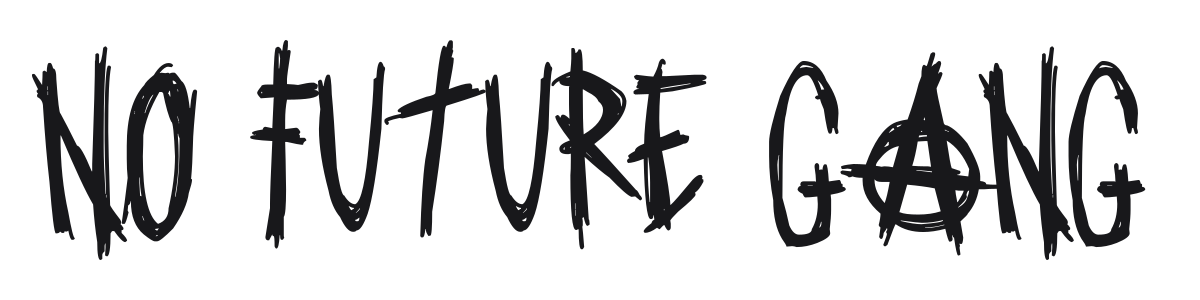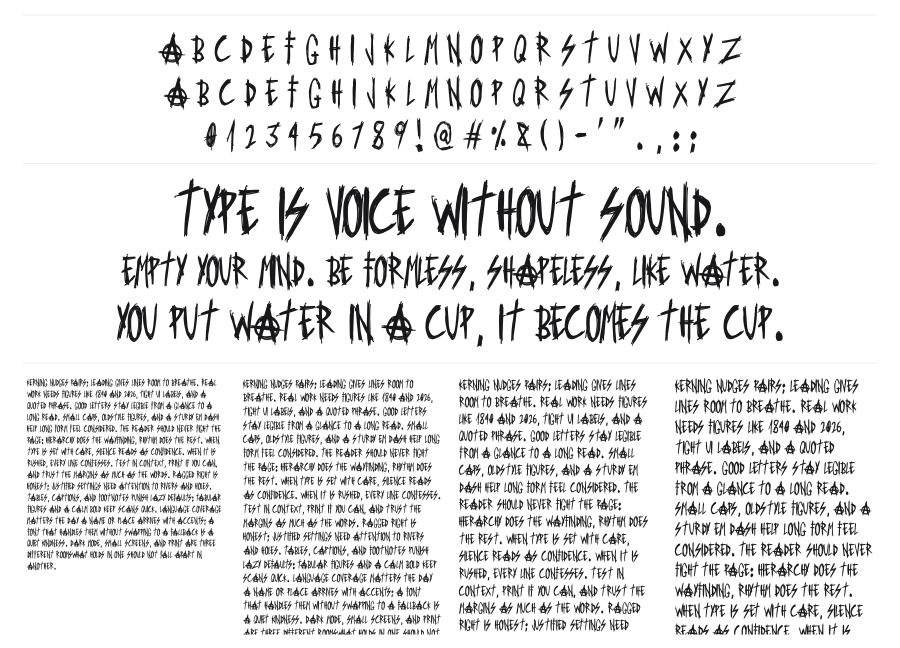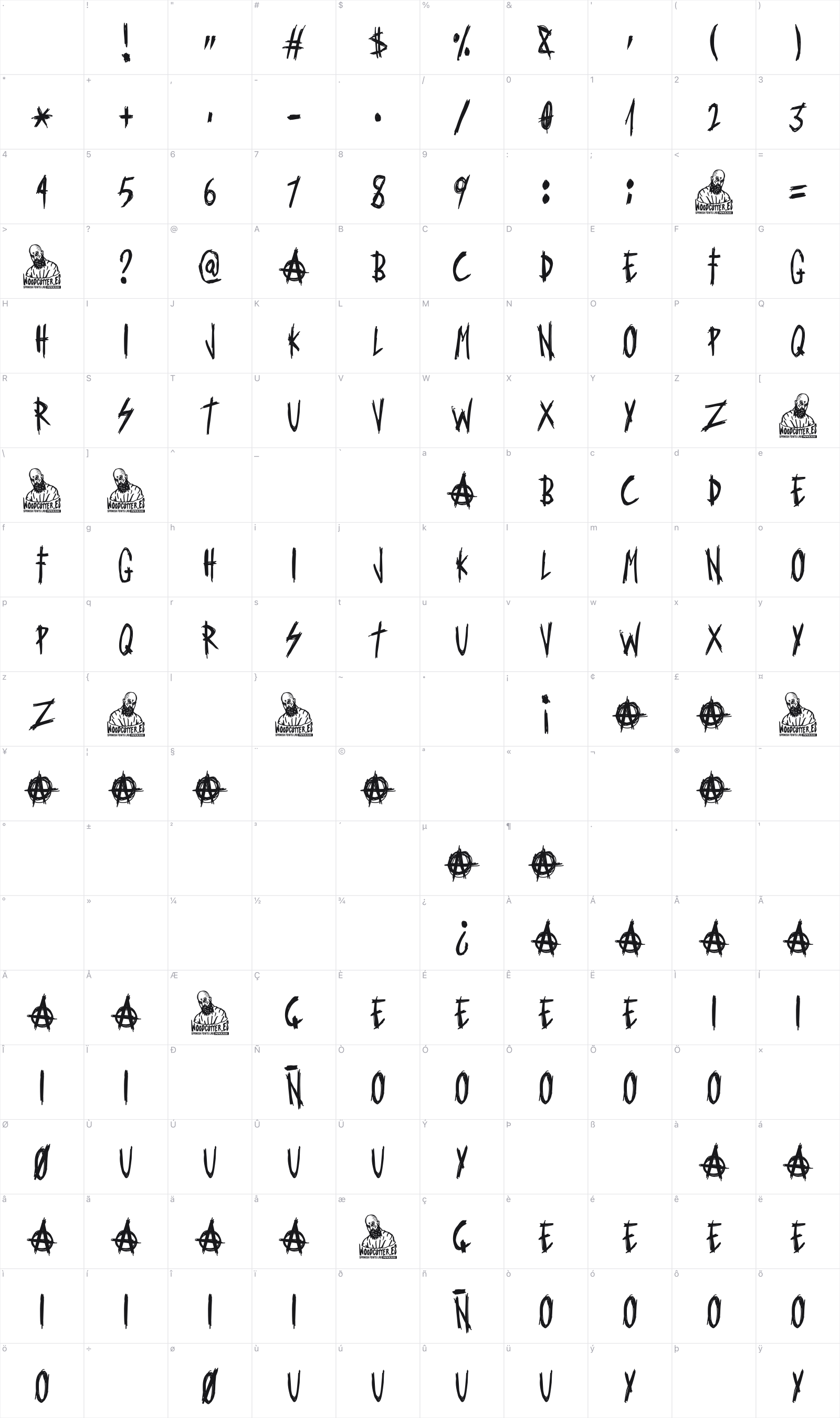
No Future Gang
No Future Gang is a punk-inspired distressed display font by Woodcutter Manero, built from scratchy hand-drawn strokes that look torn from a 1970s anarchist zine. The characters are tall and jagged with rough edges, erratic construction, and an energy that feels genuinely volatile rather than polished-edgy. It suits concert posters, band logos, and anything that needs to look like it was made with a marker and bad intentions.